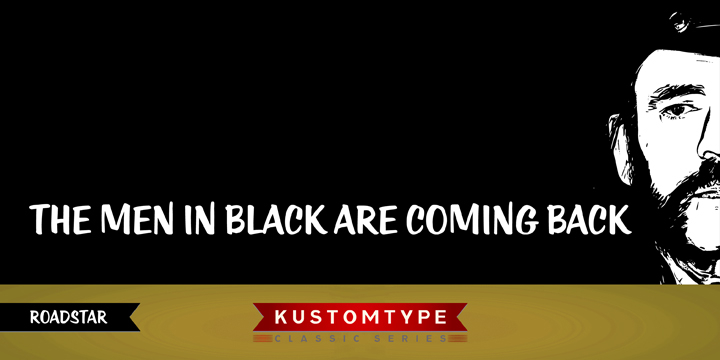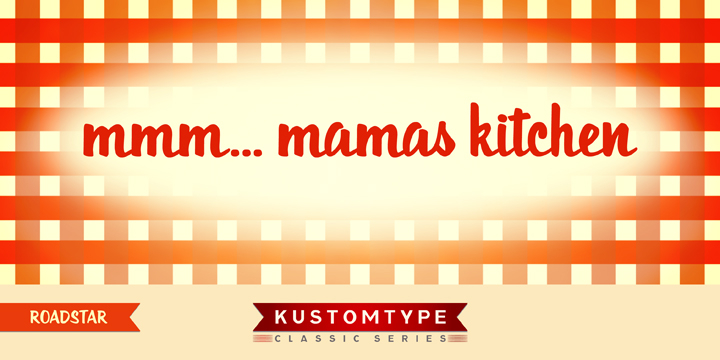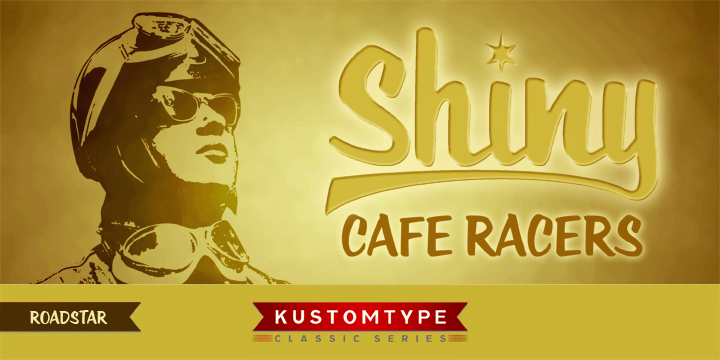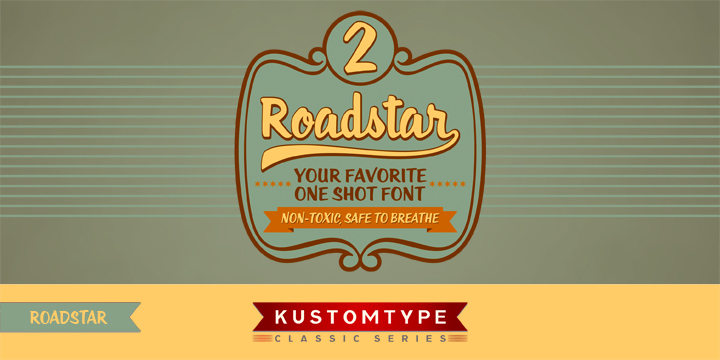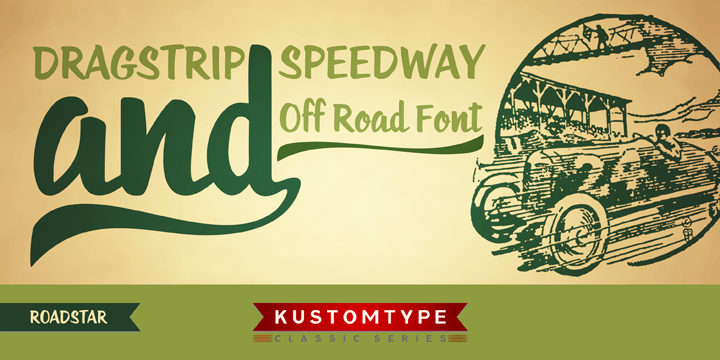
Roadstar is a comic and brush script font family. This typeface has two styles and was published by Kustomtype.
One of the very first creations from Kustomtype’s vintage font selection, Roadstar is perfect for both your retro and modern day designs. Inspired by fifties’ ads from iconic magazines like ‘Life,’ this font package is great for any and all purposes: packaging, book covers, posters, signage, and T-shirts. Roadstar comes with two styles that both contain all upper and lower case characters, punctuation, numerals and mathematical operators, as well as all accented characters. Vintage and modernity come together perfectly in this best-selling font.